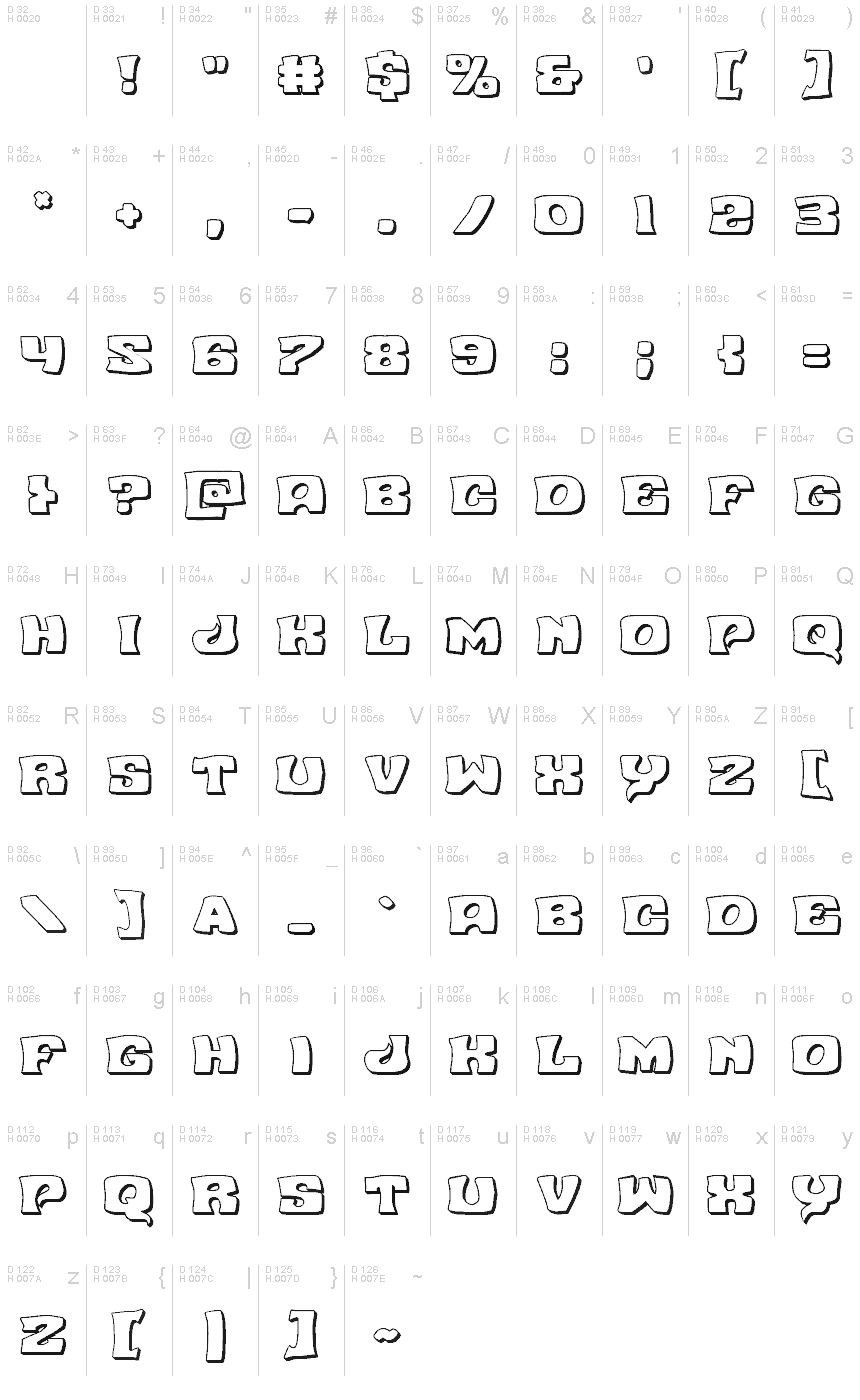
Nuevo Passion 3D Regular
Nuevo Passion 3D is a captivating display font that exudes a groovy, retro-inspired charm. Designed by Daniel Zadorozny, this bold and expanded typeface boasts a three-dimensional effect, adding depth and visual interest to any design. The distinct character forms and playful, expressive style make Nuevo Passion 3D an ideal choice for headlines, posters, and branding applications that seek to evoke a vibrant, retro-chic aesthetic.
Its versatility allows it to seamlessly transition between contemporary and nostalgic design contexts, making it a versatile addition to any designer's toolkit.